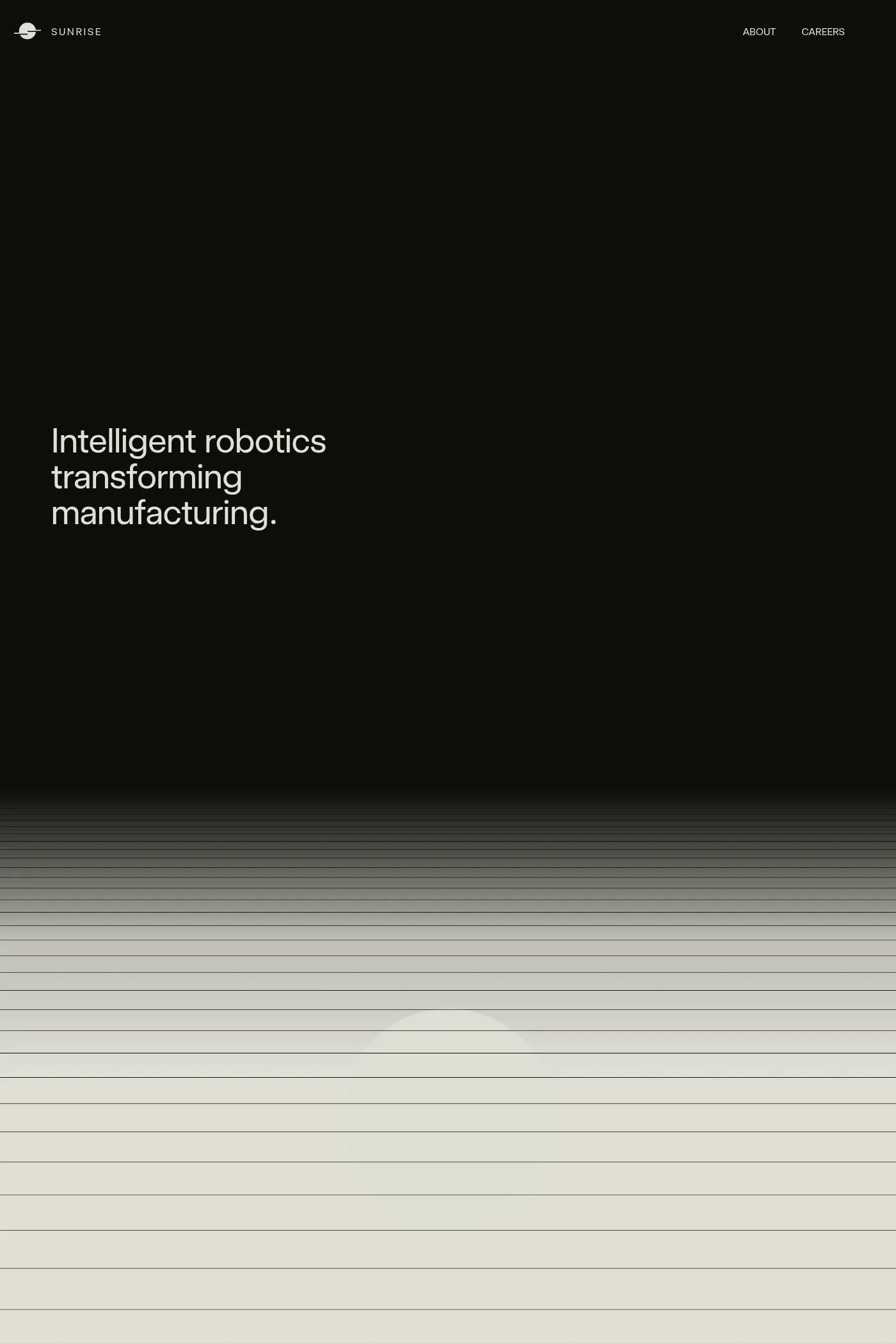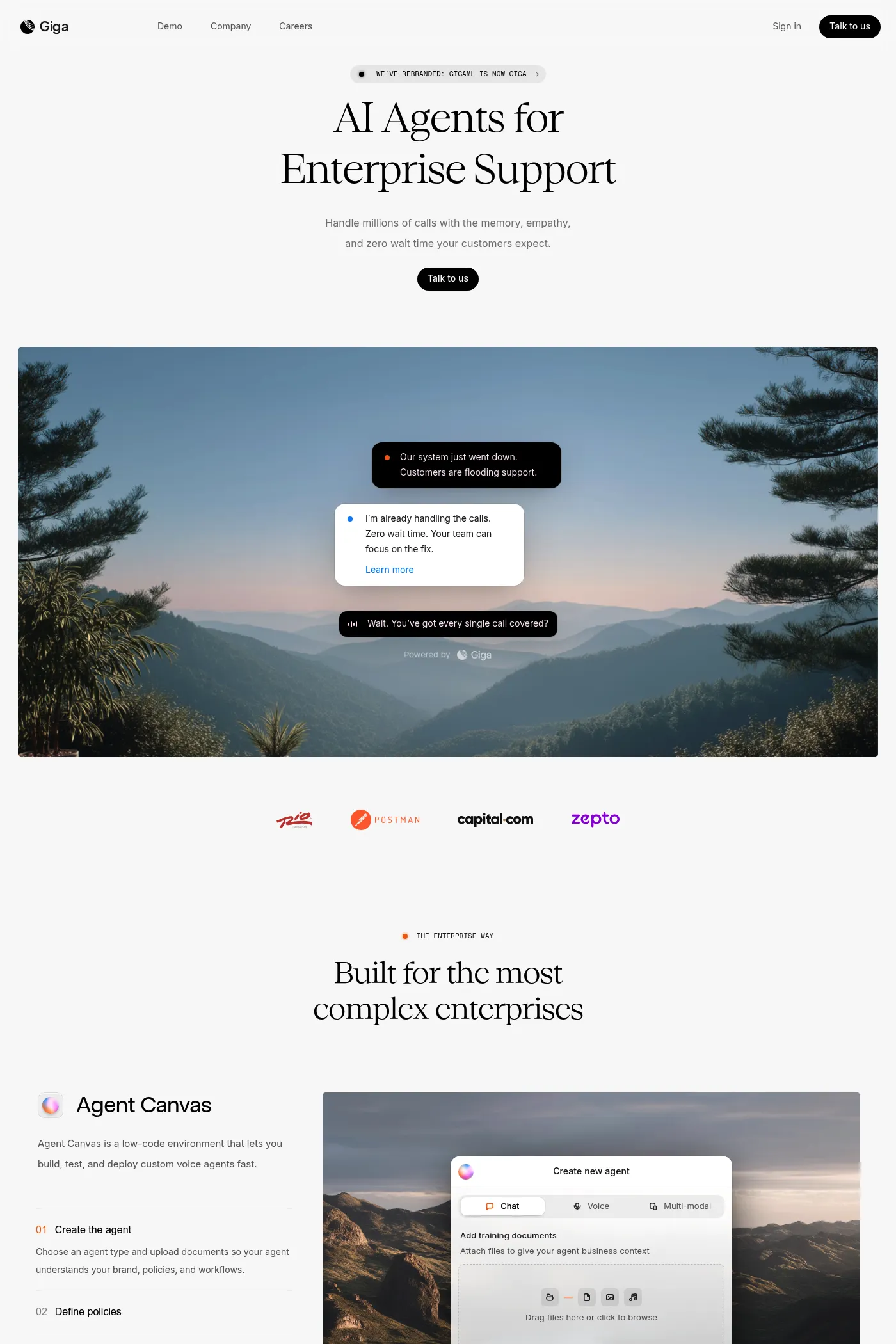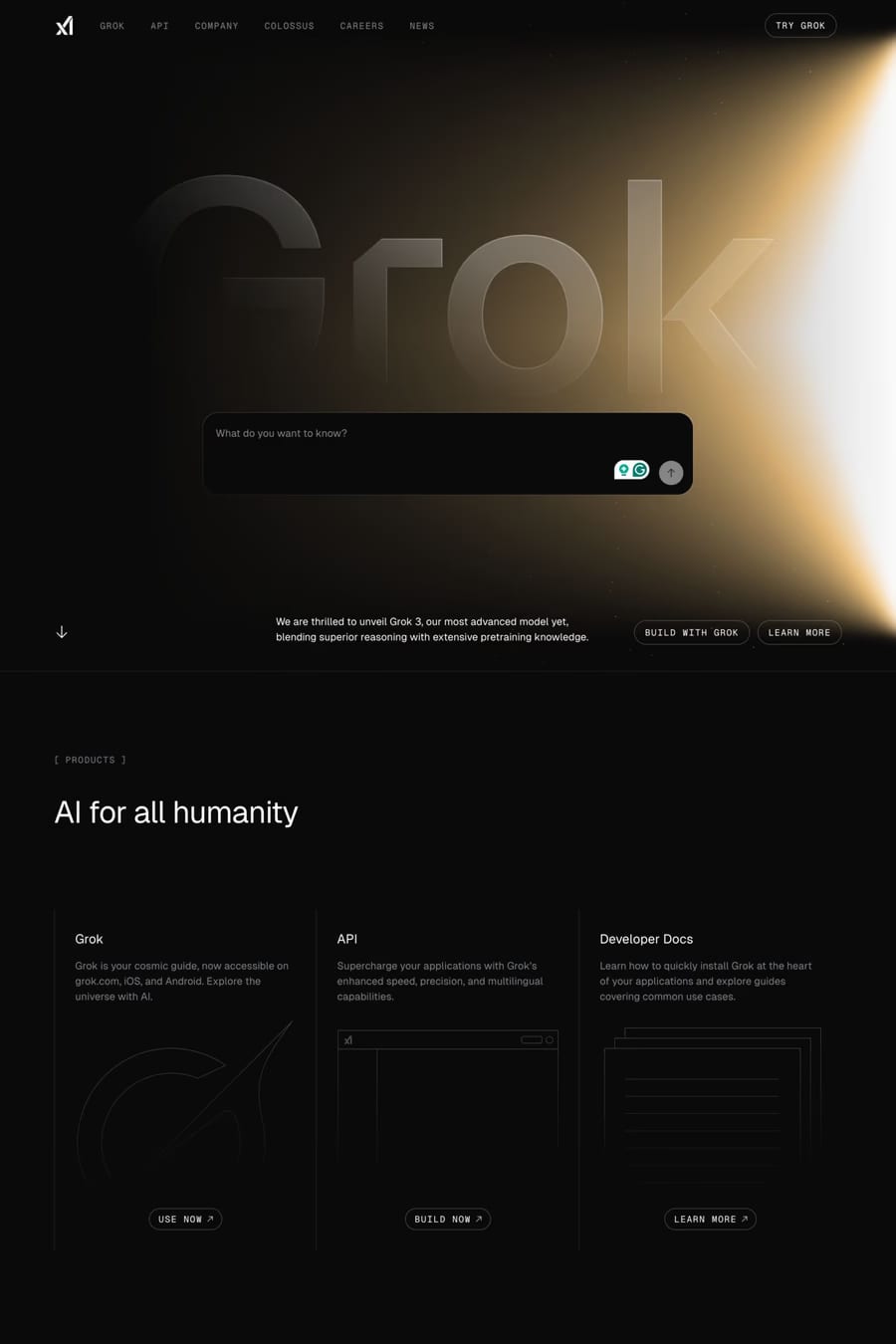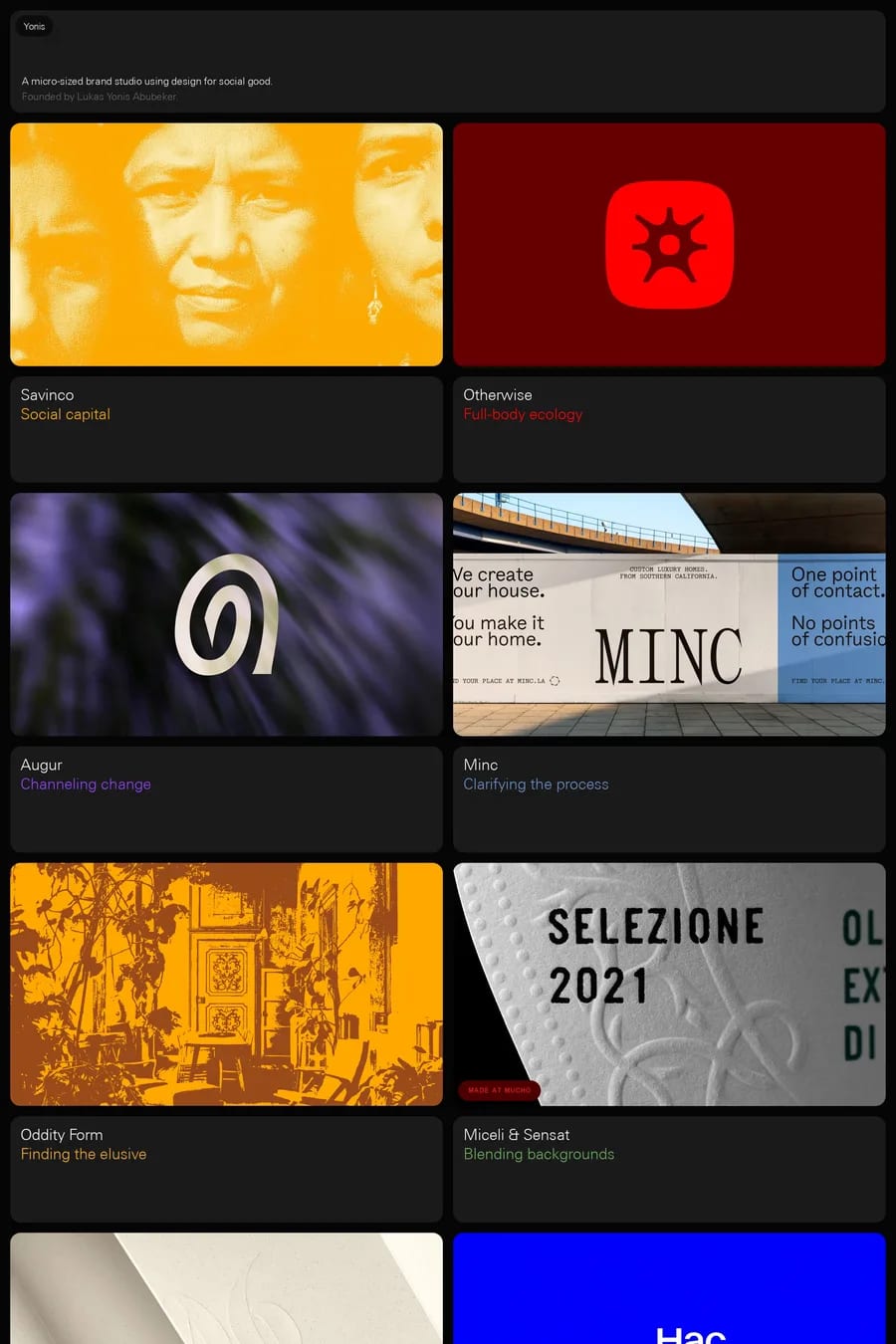
Universal Sans is a sans-serif typeface from Family Type.
Universal Sans is a variable typeface system that allows people to customise and download their own sans serif typeface, putting custom type design within reach of everyone.
A1 features 4 websites using Universal Sans, including Yonis, Giga, and Sunrise Robotics. They lean towards Minimal, Sans-serif, and Clean design styles, and they’re most often built with Webflow, Framer, and Next.js.